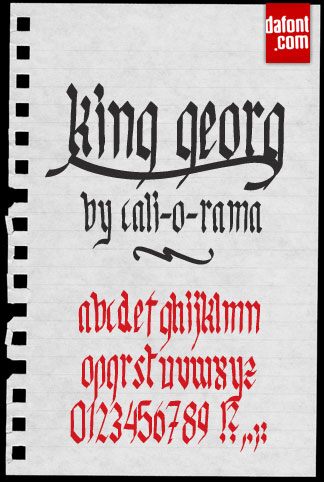
KingGeorg by Florian Mihr of Adobe Systems Incorporated is a free medieval blackletter font with narrow, sharply pointed forms, pronounced thick-thin strokes, uneven joins, and knife-like upper strokes. Long flourishes sweep beneath the letters.
A fantasy game studio or historical attraction could use its dramatic profile for branding, posters, and event graphics. The thorny peaks and dense lower swashes also suit metal merchandise and theatrical publishing, especially when the subject calls for heraldry, dark folklore, or courtly spectacle. In these settings, the lettering can become part of an illustrated crest or ornamental border rather than serving only as a title.